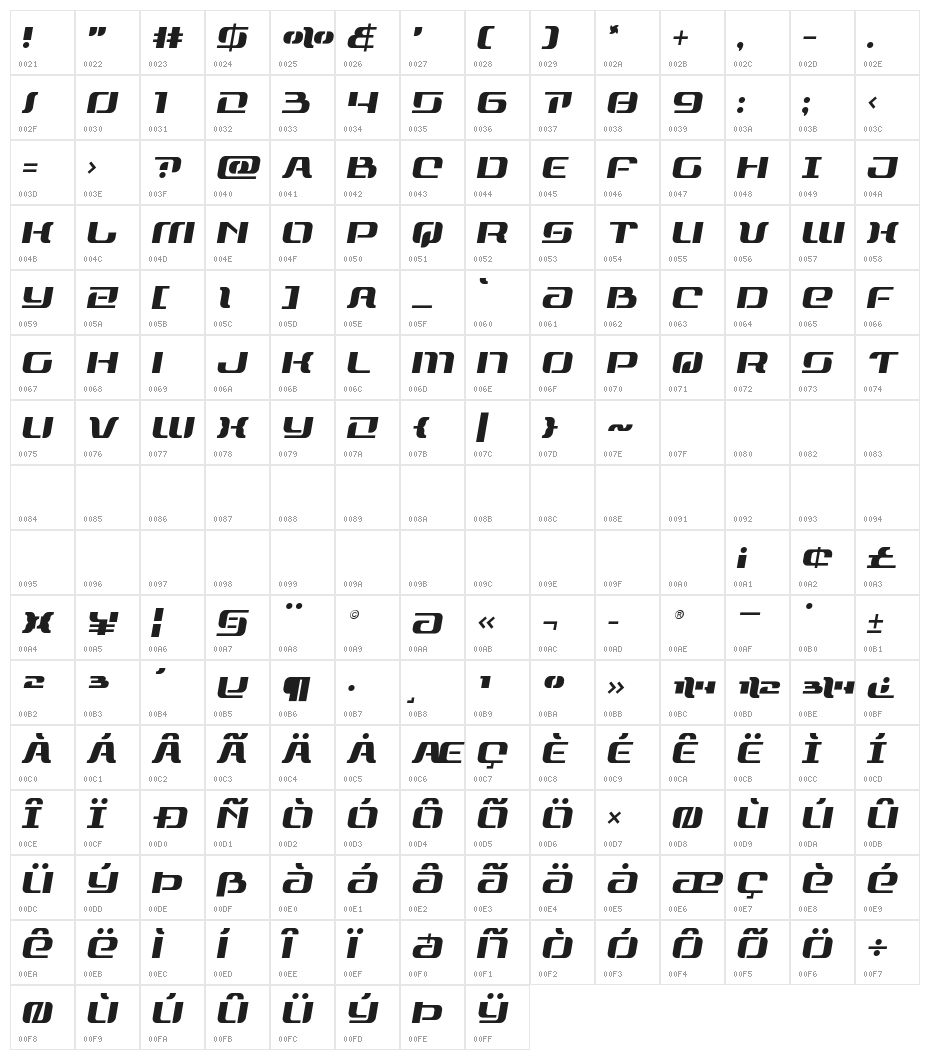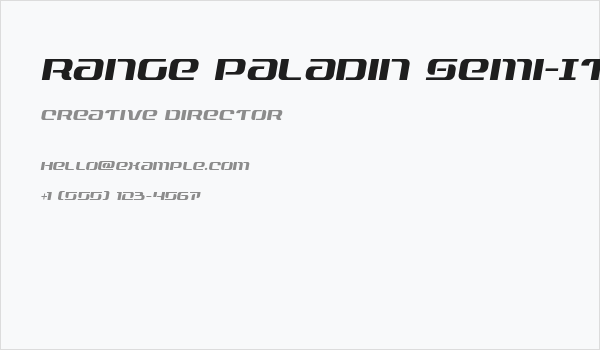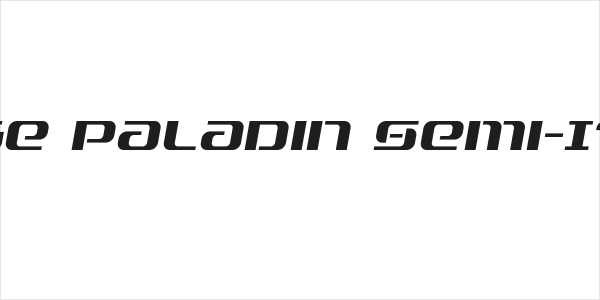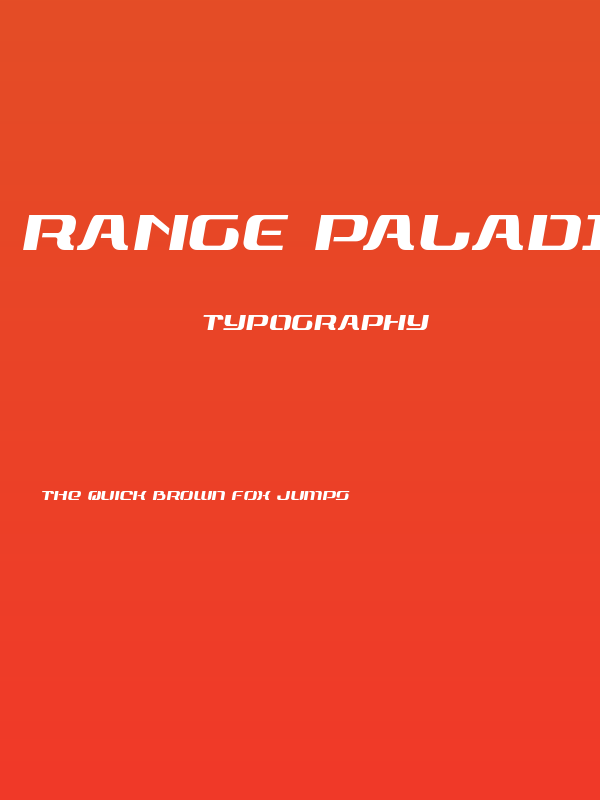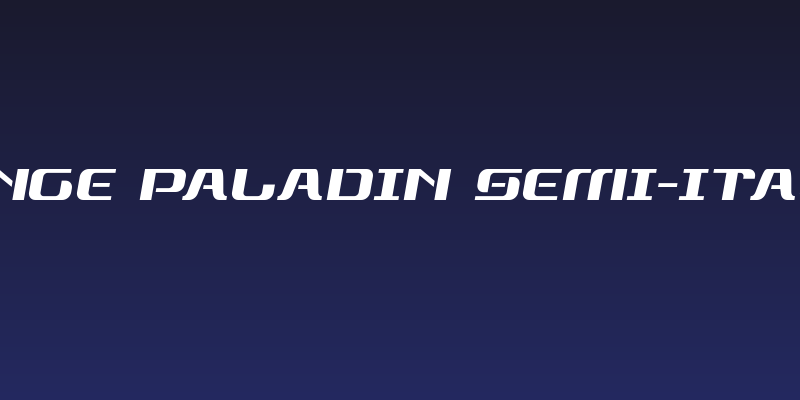
Range Paladin Semi-Italic Font
Range Paladin Semi-Italic Description
This font features a dynamic and futuristic design with semi-italicized characters that convey a sense of motion and modernity. The characters are bold and slightly condensed, with a unique geometric style that incorporates sharp angles and smooth curves. The uppercase and lowercase letters maintain a consistent style, while the numerals and special characters complement the overall aesthetic. The font's design is ideal for projects that require a contemporary and edgy look, making it suitable for technology-related branding, sports team logos, or sci-fi themed designs.
| Use Case | Logos, Headlines |
| Proposed Projects | Ideal for technology branding, sports logos, and sci-fi themed designs. |